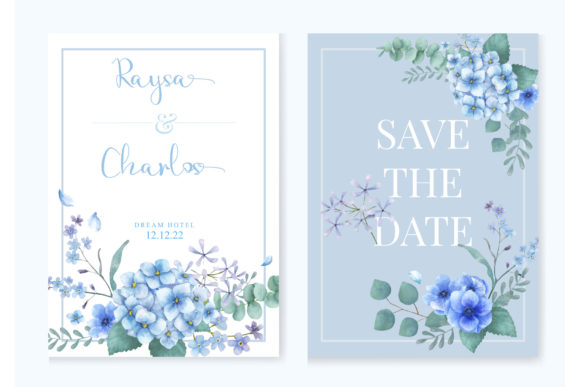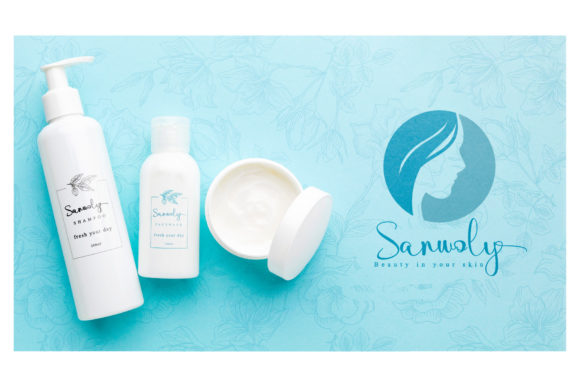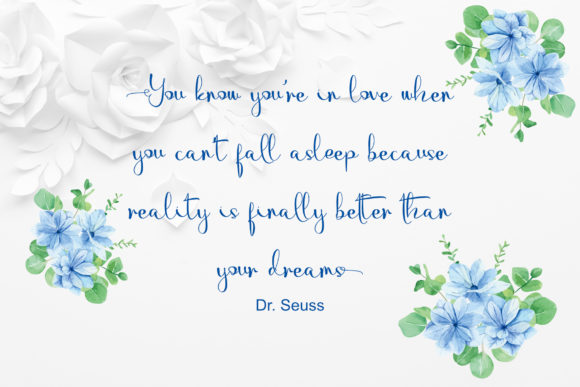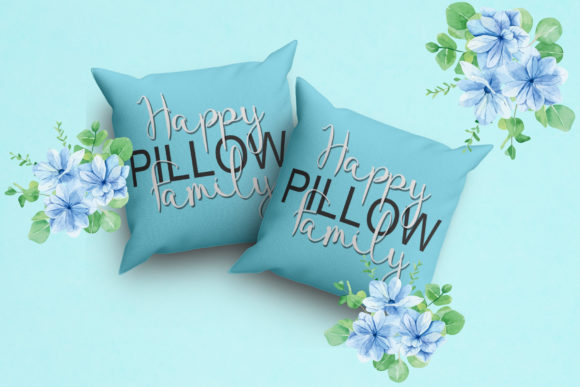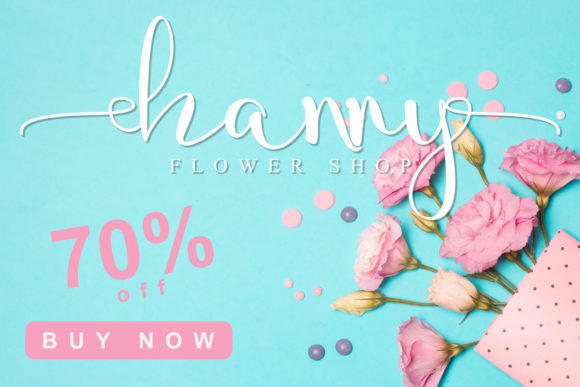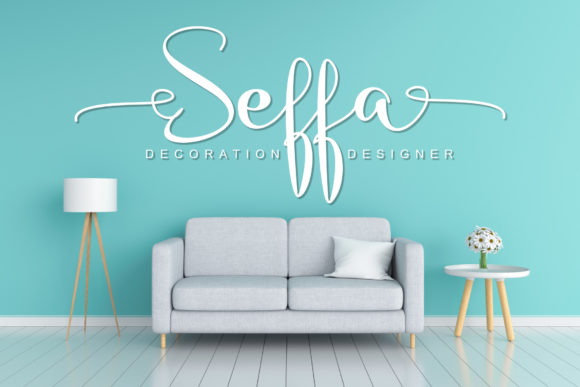
Introduction to Khallea Font
Khallea is a delicate, elegant, and flowing handwritten font.
It has beautiful and well-balanced characters and it matches a wide pool of designs This font is PUA encoded which means you can access all of the glyphs and swashes with ease.